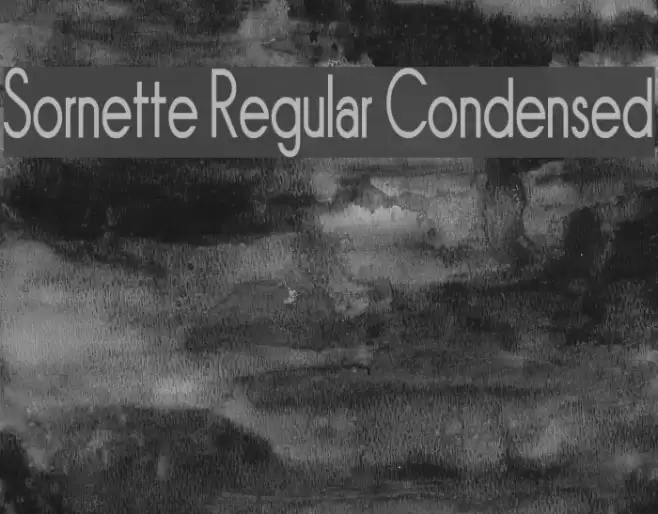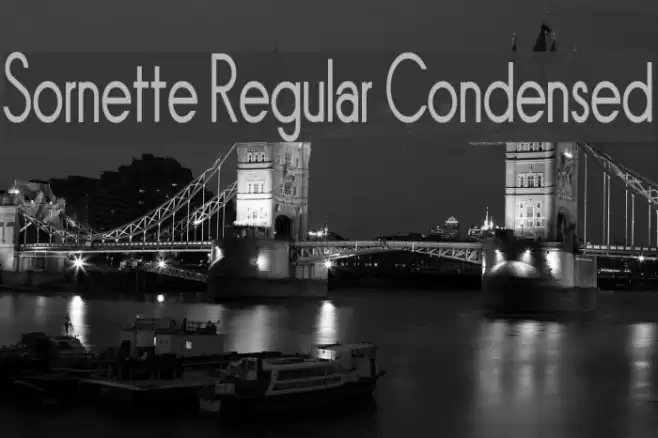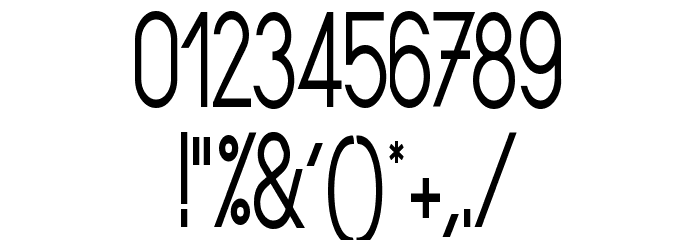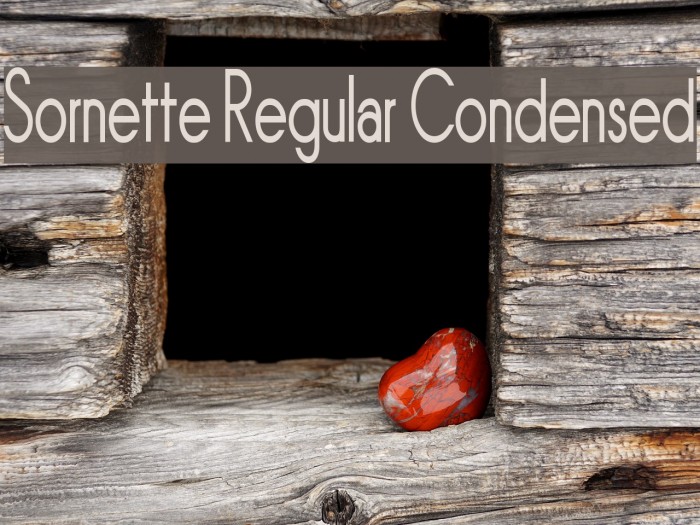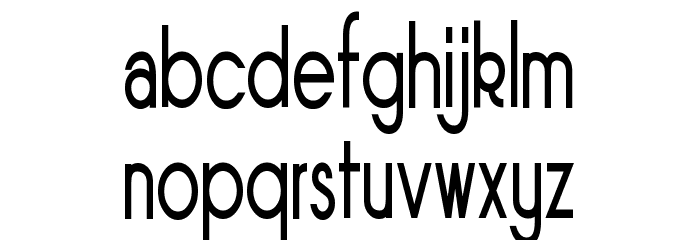
Sornette Regular Condensed Font
Sornette Regular Condensed Description
This font features a clean and modern sans-serif style with a condensed width, offering a sleek and streamlined appearance. The characters are uniformly structured with a consistent stroke width, providing a harmonious and balanced look. The uppercase and lowercase letters are well-proportioned, and the numerals are clear and legible. Special characters are included, maintaining the font's cohesive design. Its simplicity and clarity make it versatile for various design applications.
A modern, condensed sans-serif font with a clean and streamlined appearance from Uncategorized fonts.
- Proposed Projects: Ideal for branding, advertising, and editorial design projects where a modern and professional look is desired.